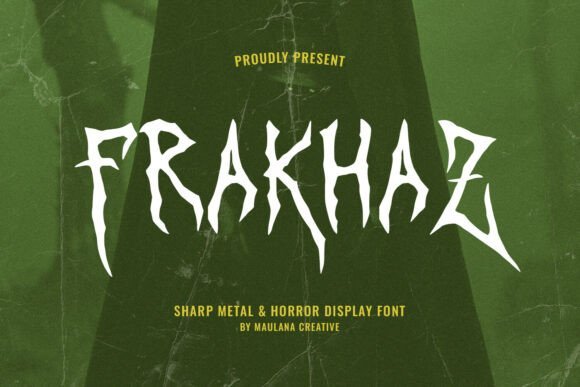
Introduction to Frakhaz Font
Unleash the darkness with Frakhaz, an aggressive and razor-sharp display font designed for projects that need to scream.
Inspired by the raw energy of underground Heavy Metal culture and the chilling aesthetics of classic horror movies, Frakhaz features jagged, thorn-like strokes that give every word a lethal edge Whether you are designing a death metal band logo, a spine-tingling horror movie poster, or edgy streetwear apparel, this font provides the perfect balance of chaos and legibility.